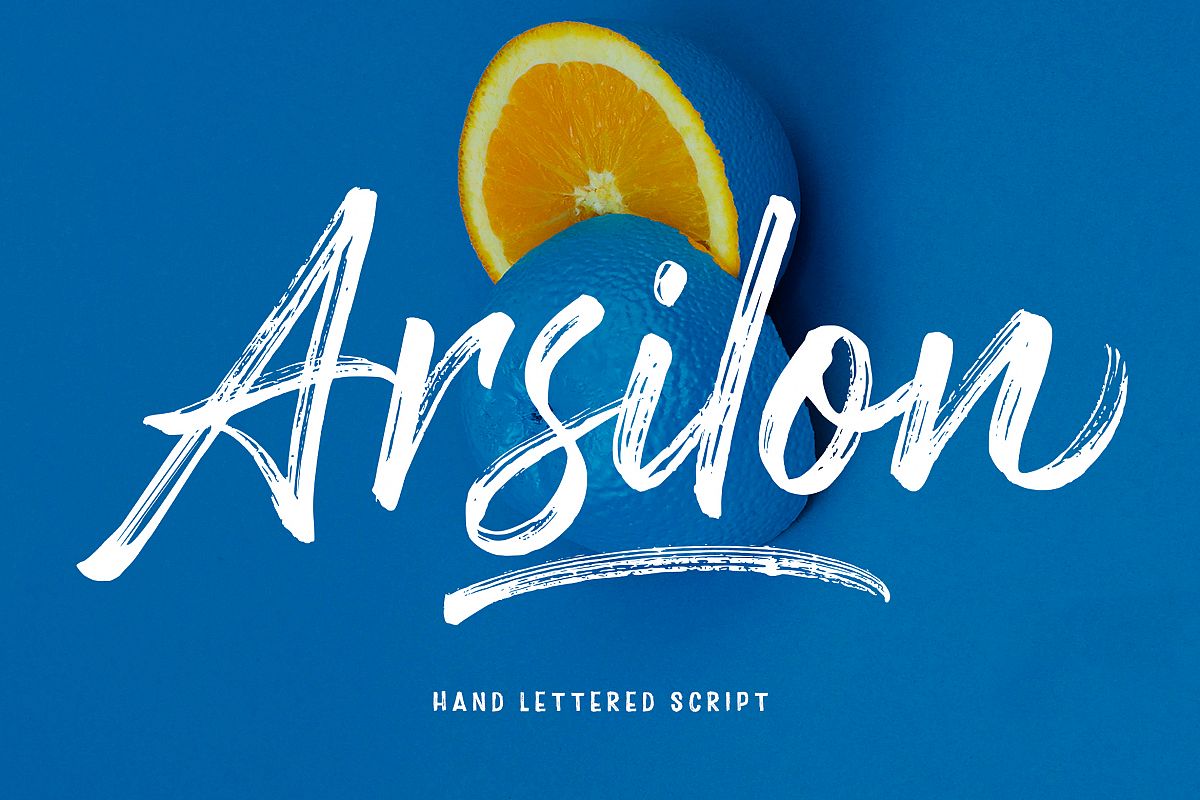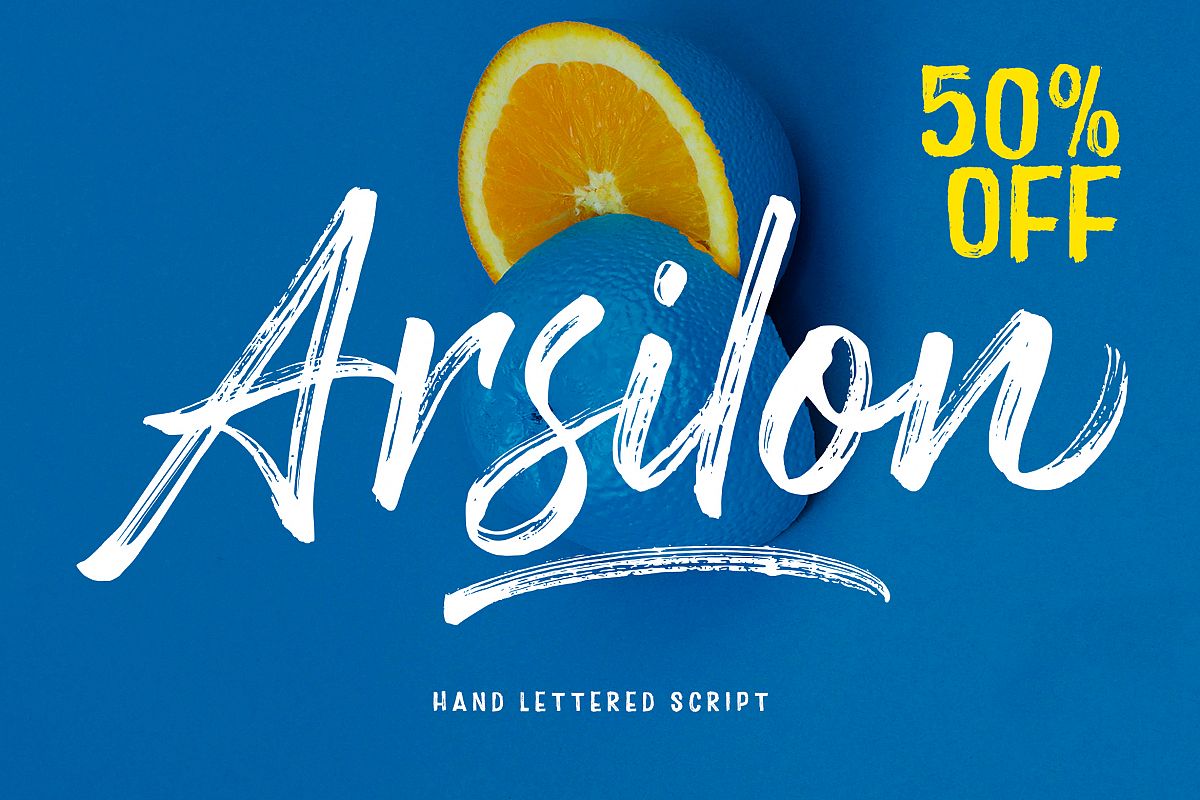
Arsilon New Update
Arsilon Underlines
Arsilon
Arsilon Smooth Underlines
Arsilon Smooth
Arsilon is a textured brush font, a contemporary approach to design, naturally handmade and with underscores. It also has alternatives and ligatures that make your design more attractive.
Suitable for use in title design such as clothing, invitations, tittle books, stationery designs, quotes, branding, logos, greeting cards, t-shirts, packaging designs, posters and more.
âš¡ New update, Now the Arsilon font has been updated or has two styles with the Arsilon Smooth version, so you can already choose the style you want to use for your design.